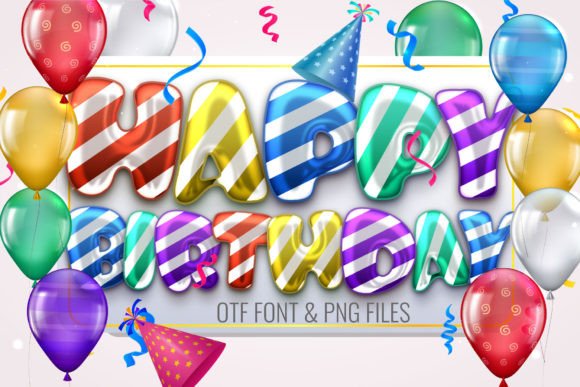
Introducing Happy Birthday Font, the perfect addition to any designer's font collection. Created by Nobu Collections, this colorful font family is designed specifically for banner design and is sure to make your designs stand out.
Happy Birthday Font is not only adorable but also modern and friendly, making it the perfect choice for any project that requires a playful touch. Its high-quality PNG alphabet files ensure that your designs will look sharp and professional.
With Happy Birthday Font, you can add a jolly touch to any project, whether it's creating banners, invitations, or anything in between. The possibilities are endless, and the results are sure to be eye-catching.